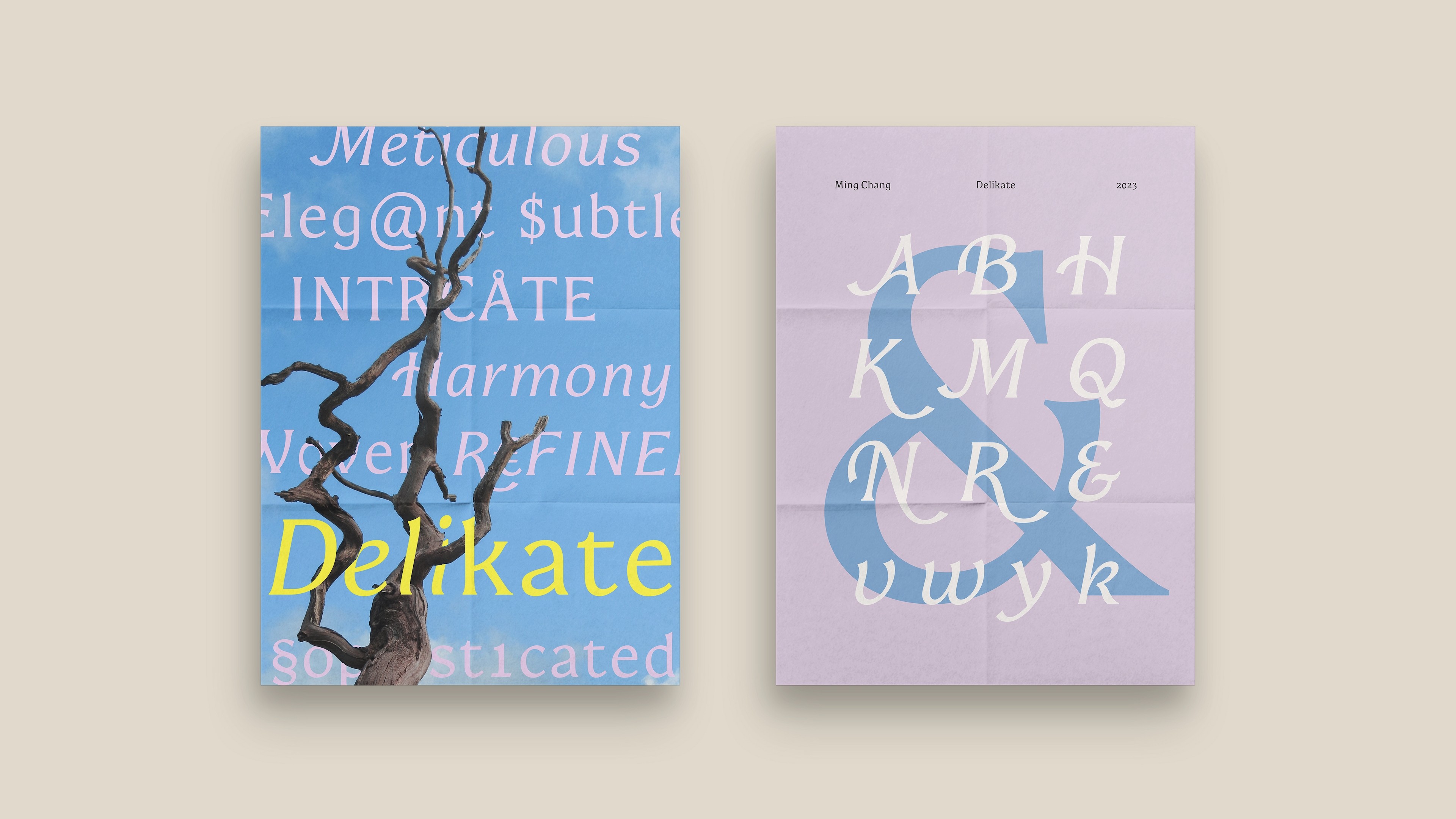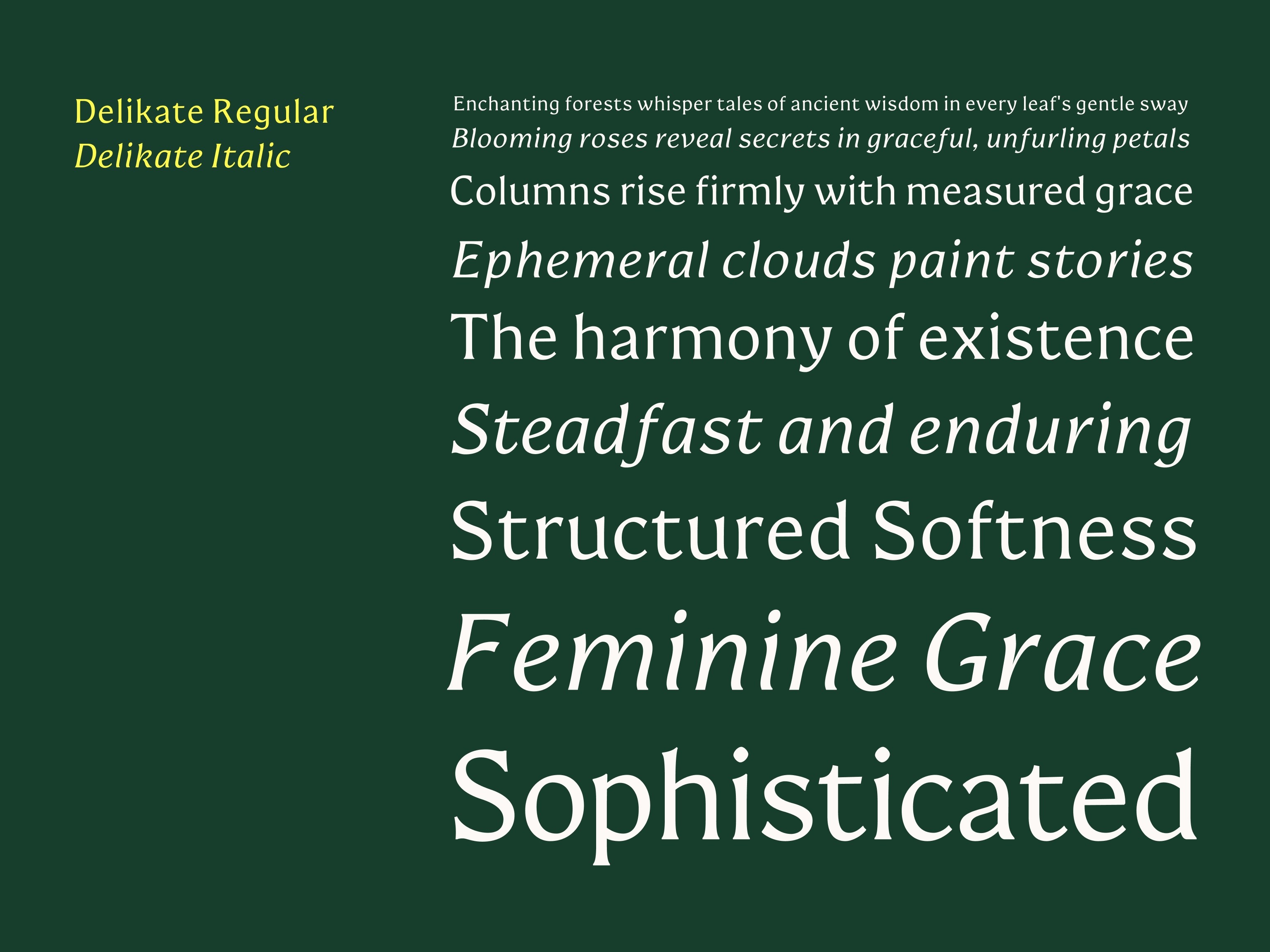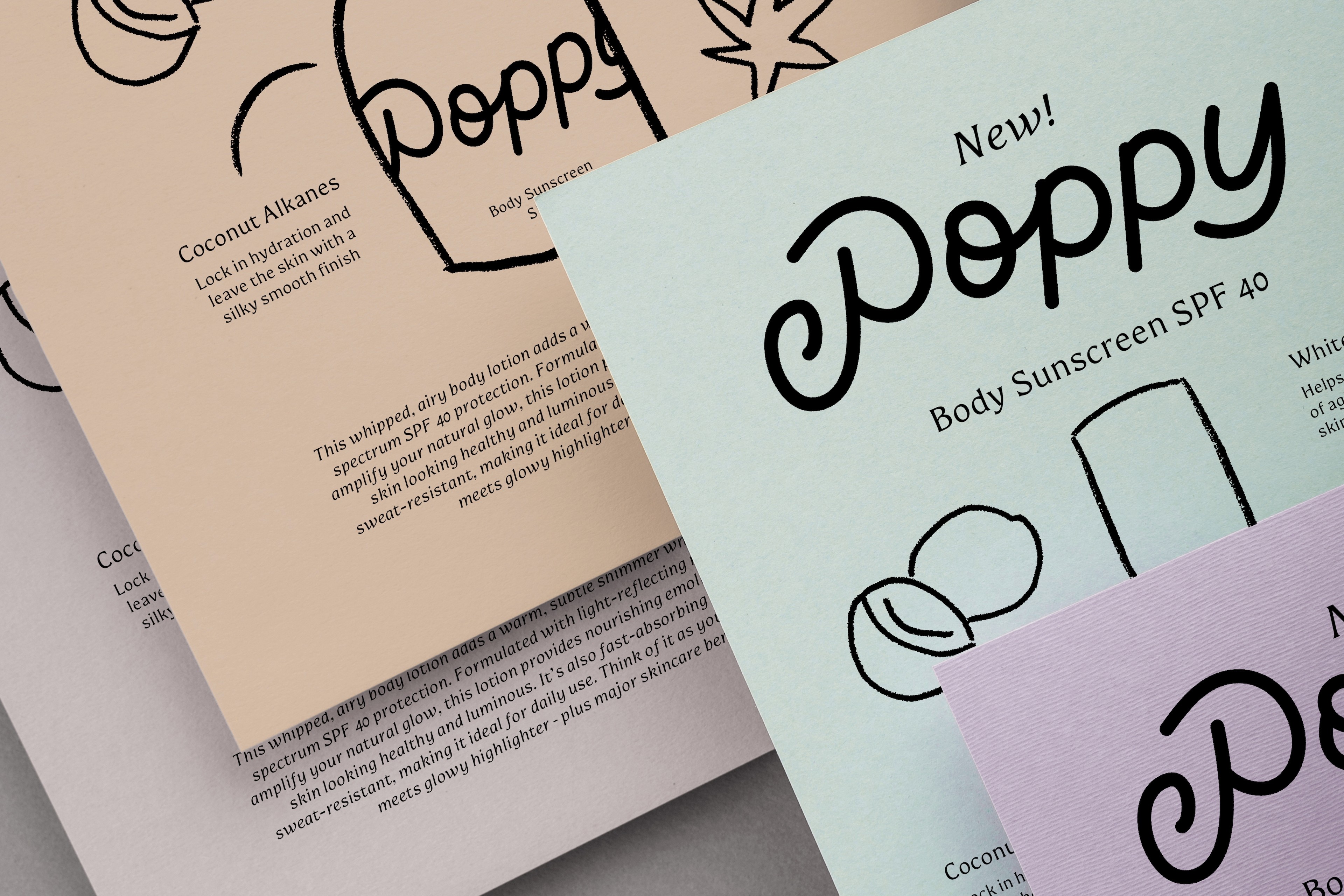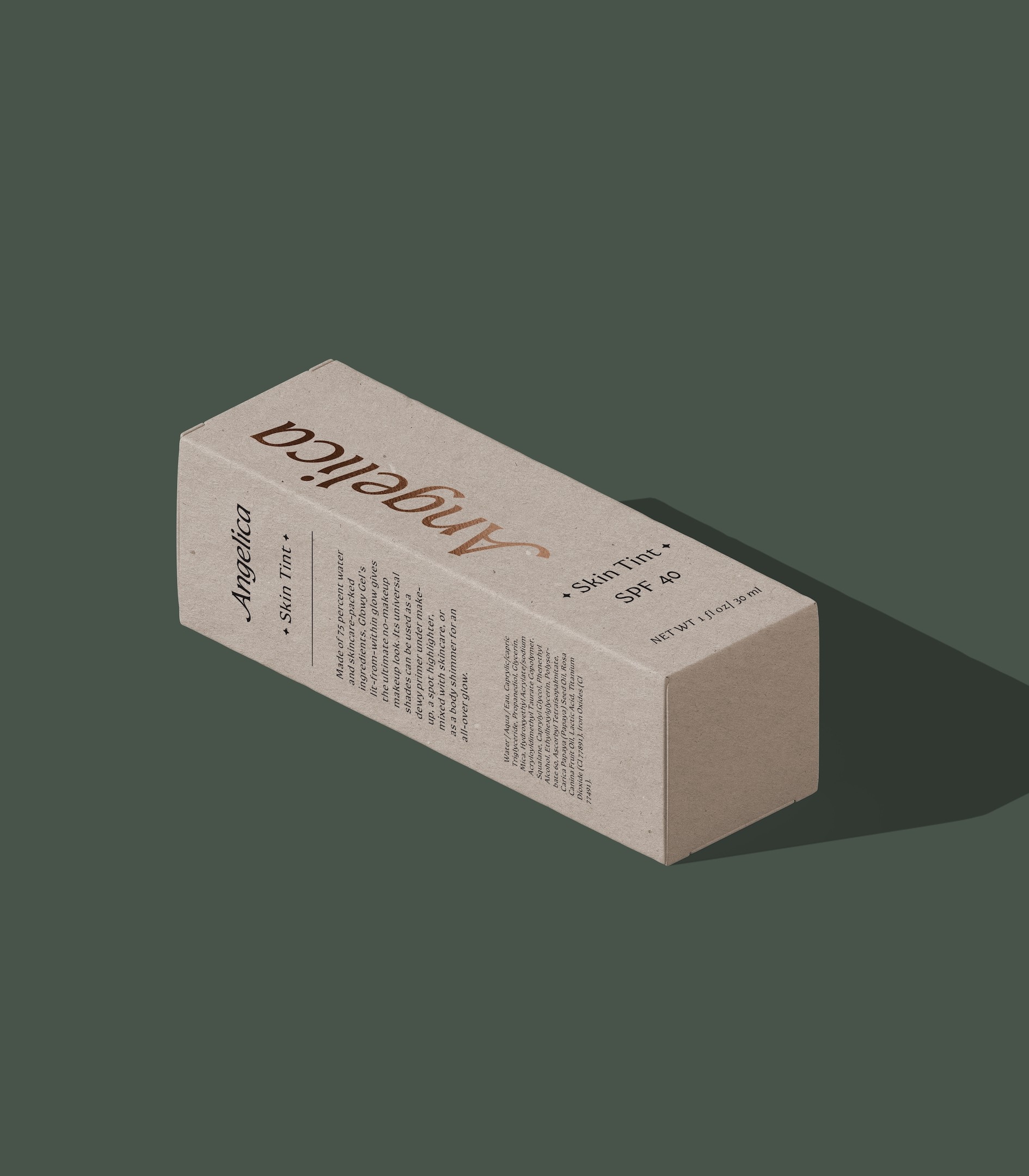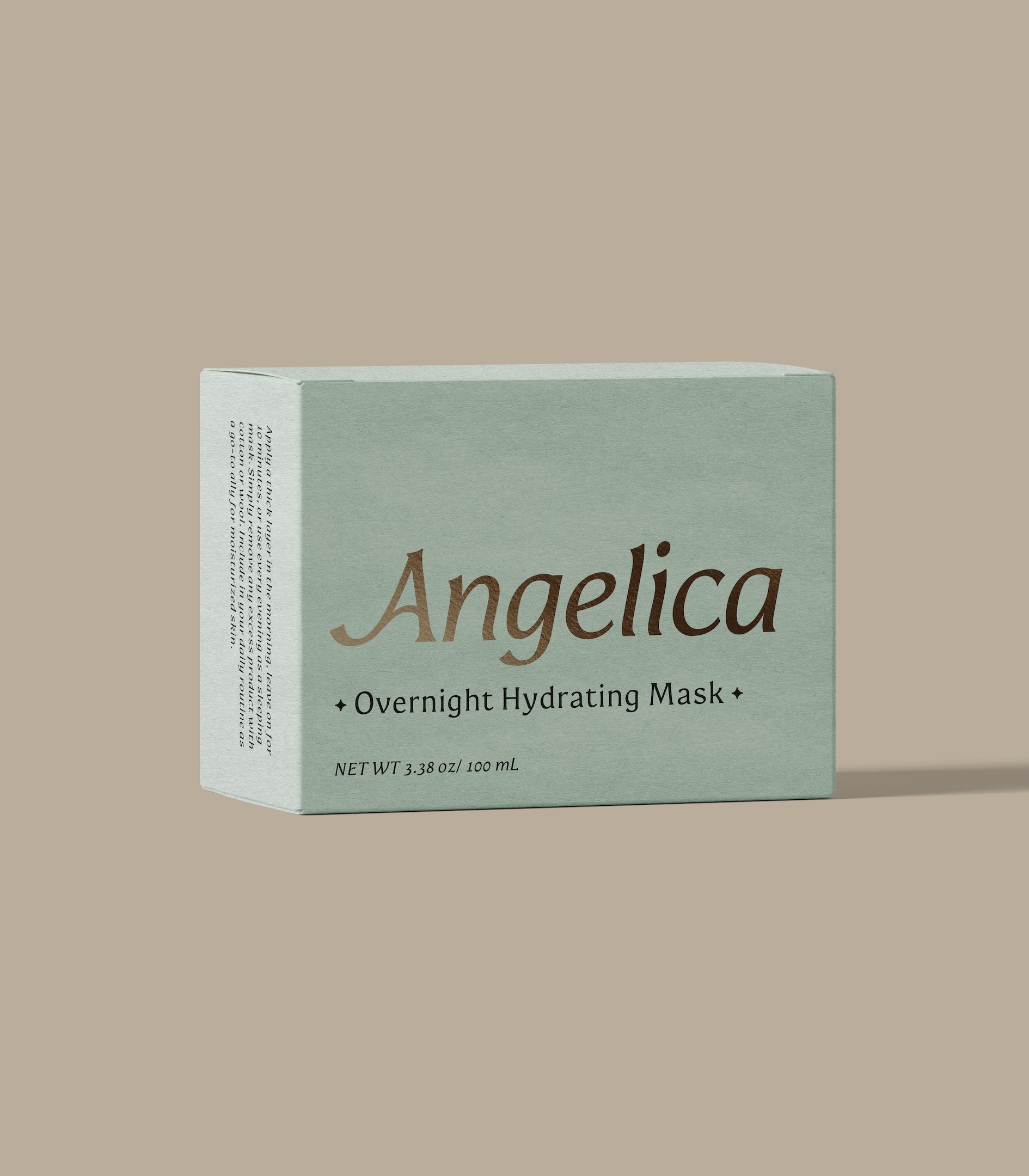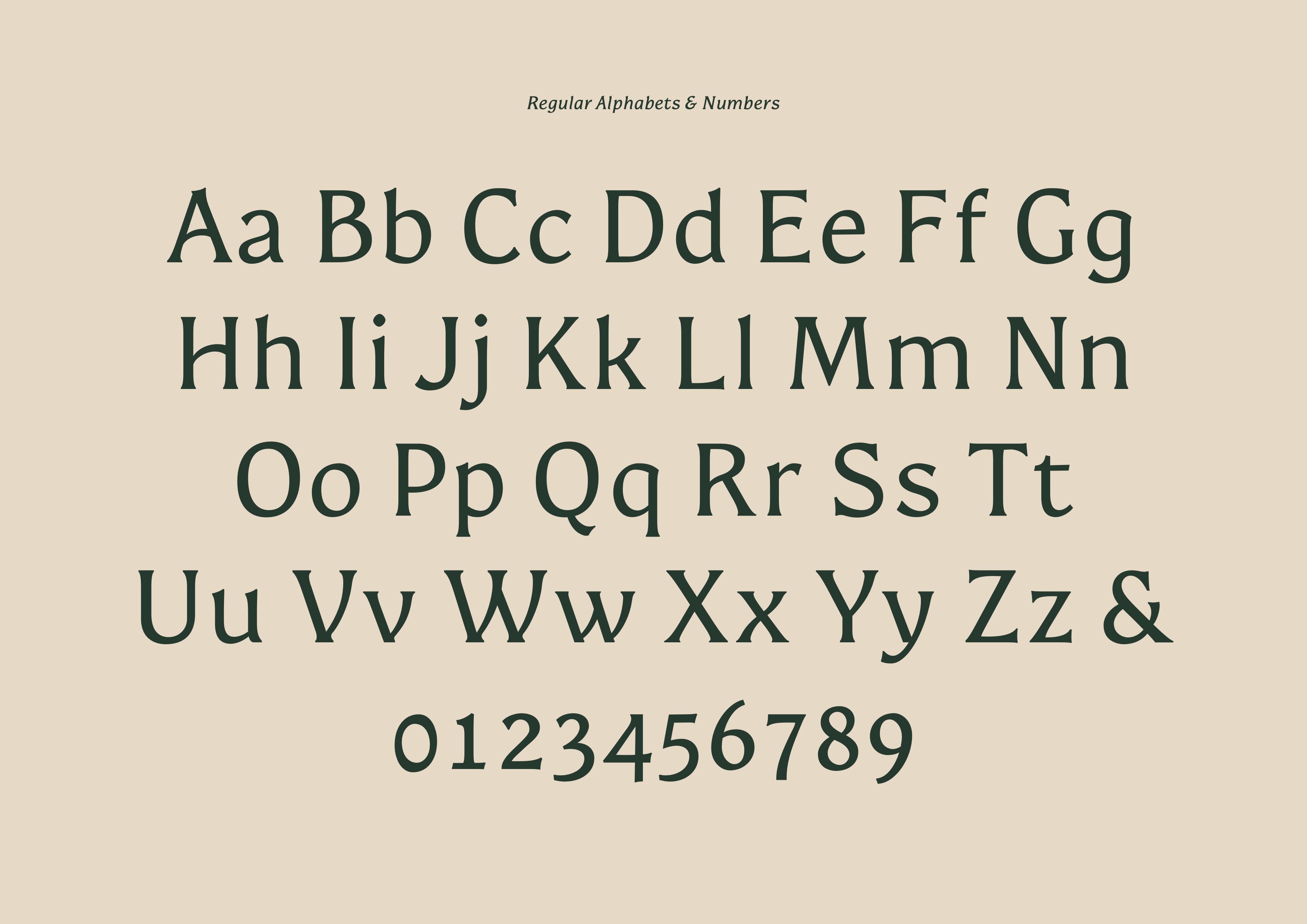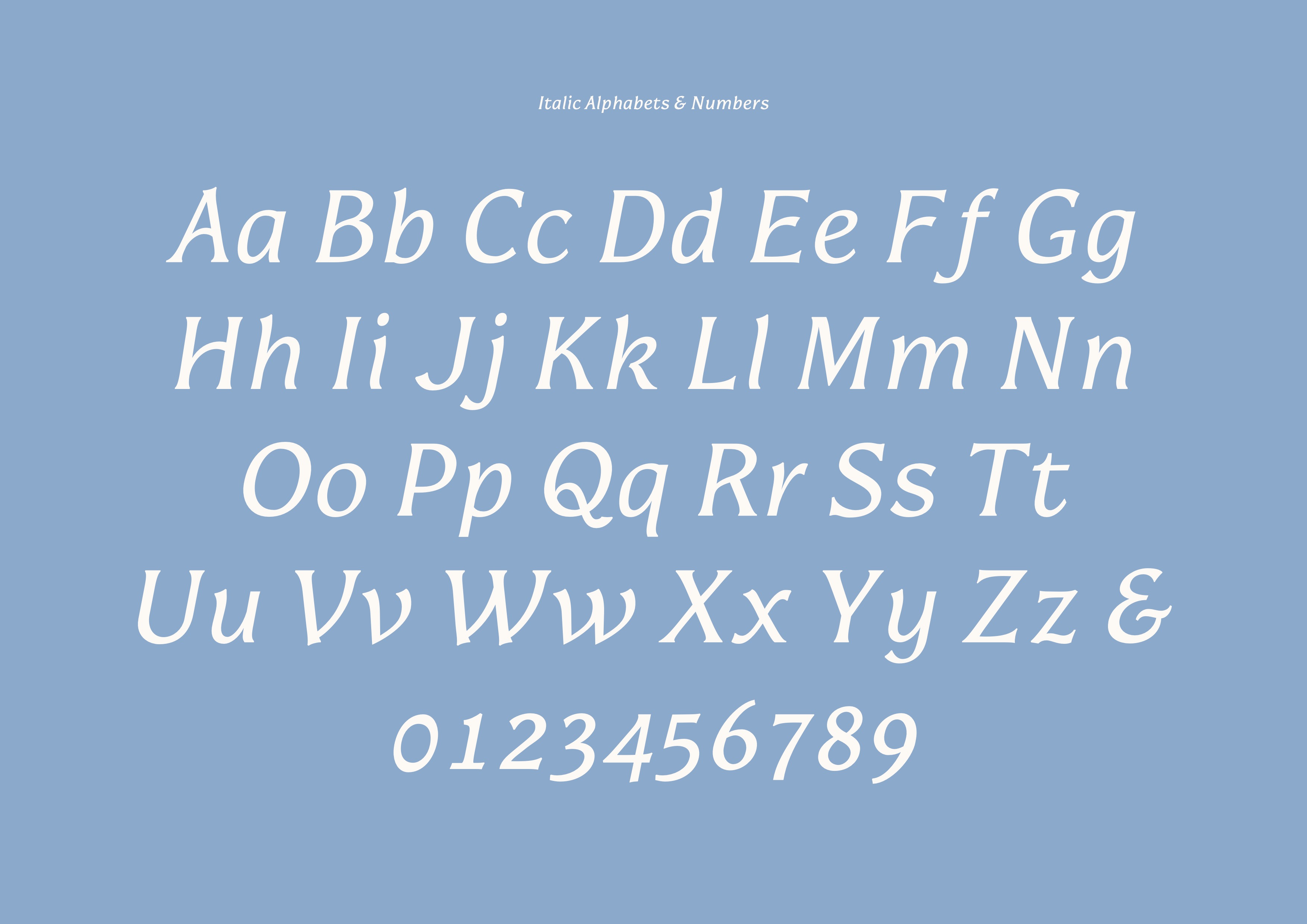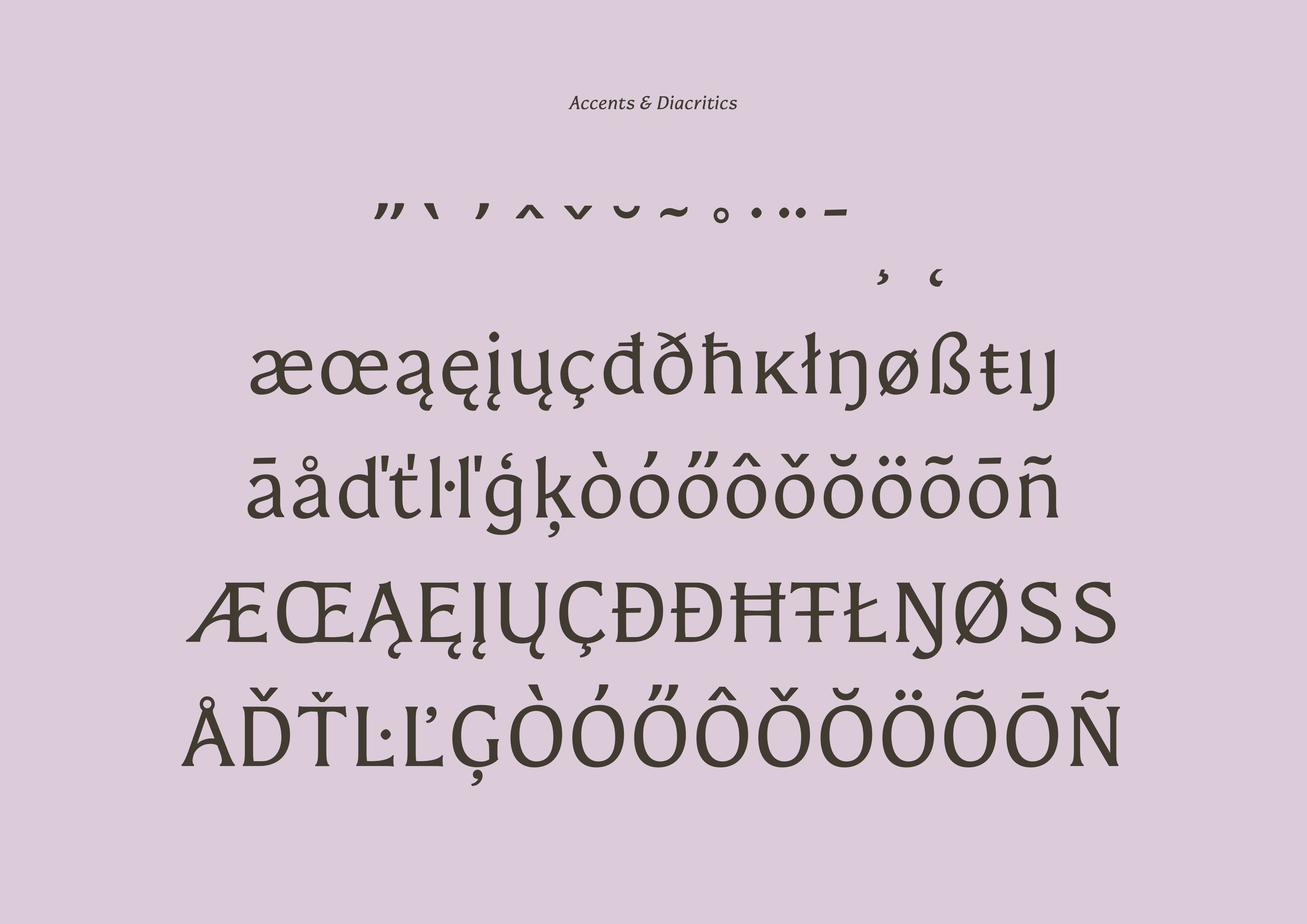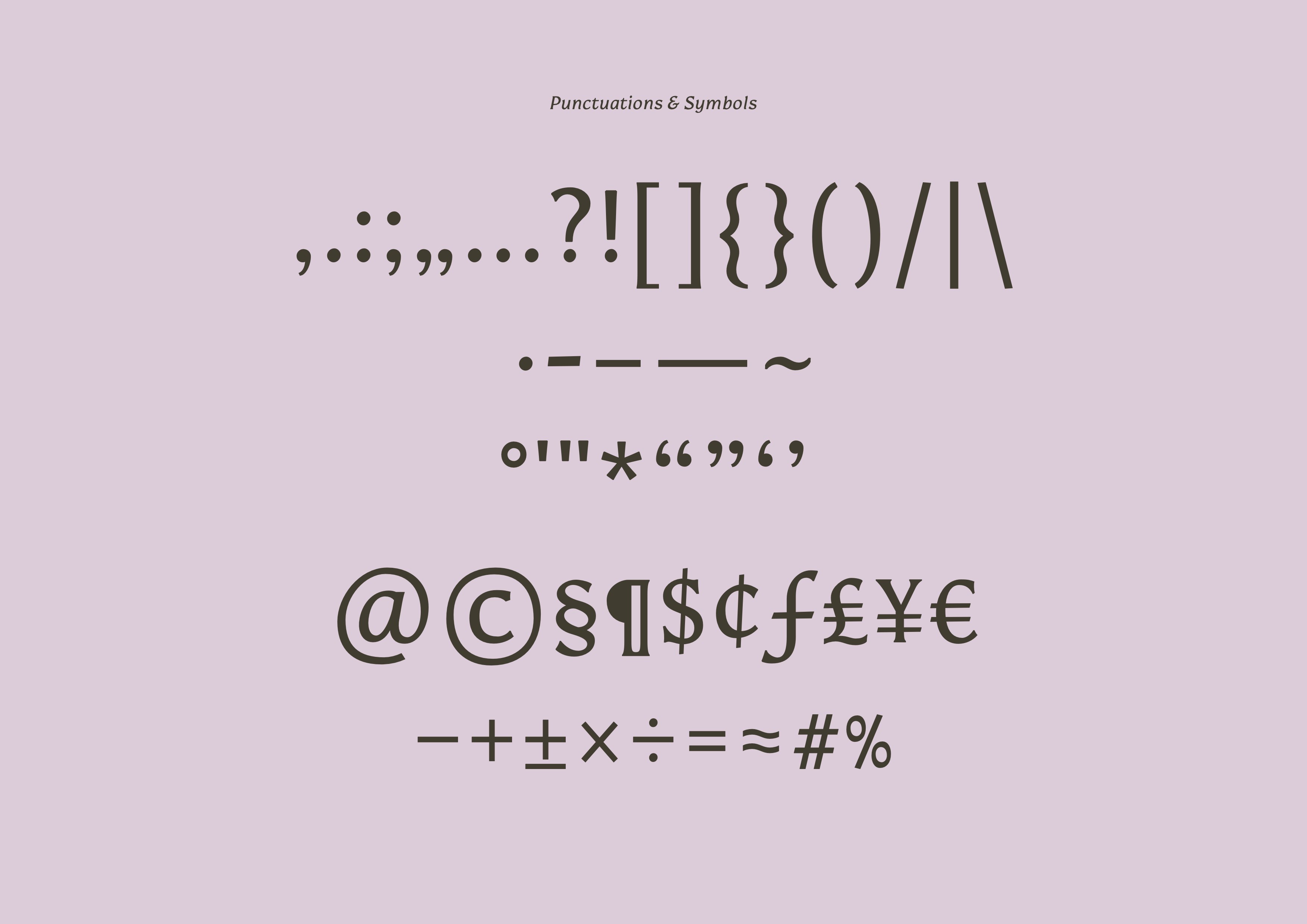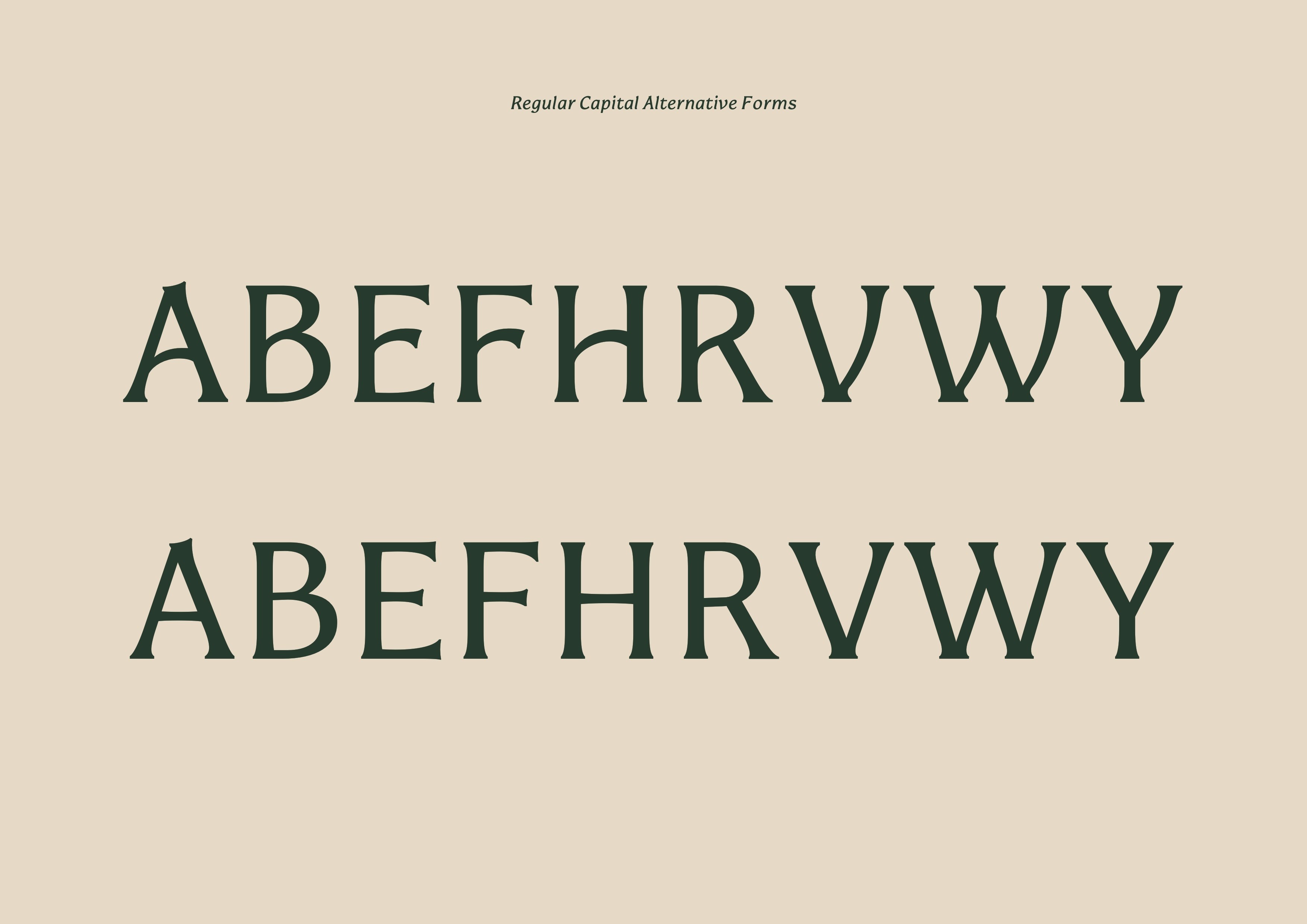
Delikate
Delikate is a lightweight text face with subtle details hiding in plain sight. Inspired by the curves found in nature and the steady construction of Roman architecture, Delikate presents a humble mixture of femininity, precision and approachability.
The typeface contains both Roman and Italic constructions, with several alternative letters including decorative swashes.